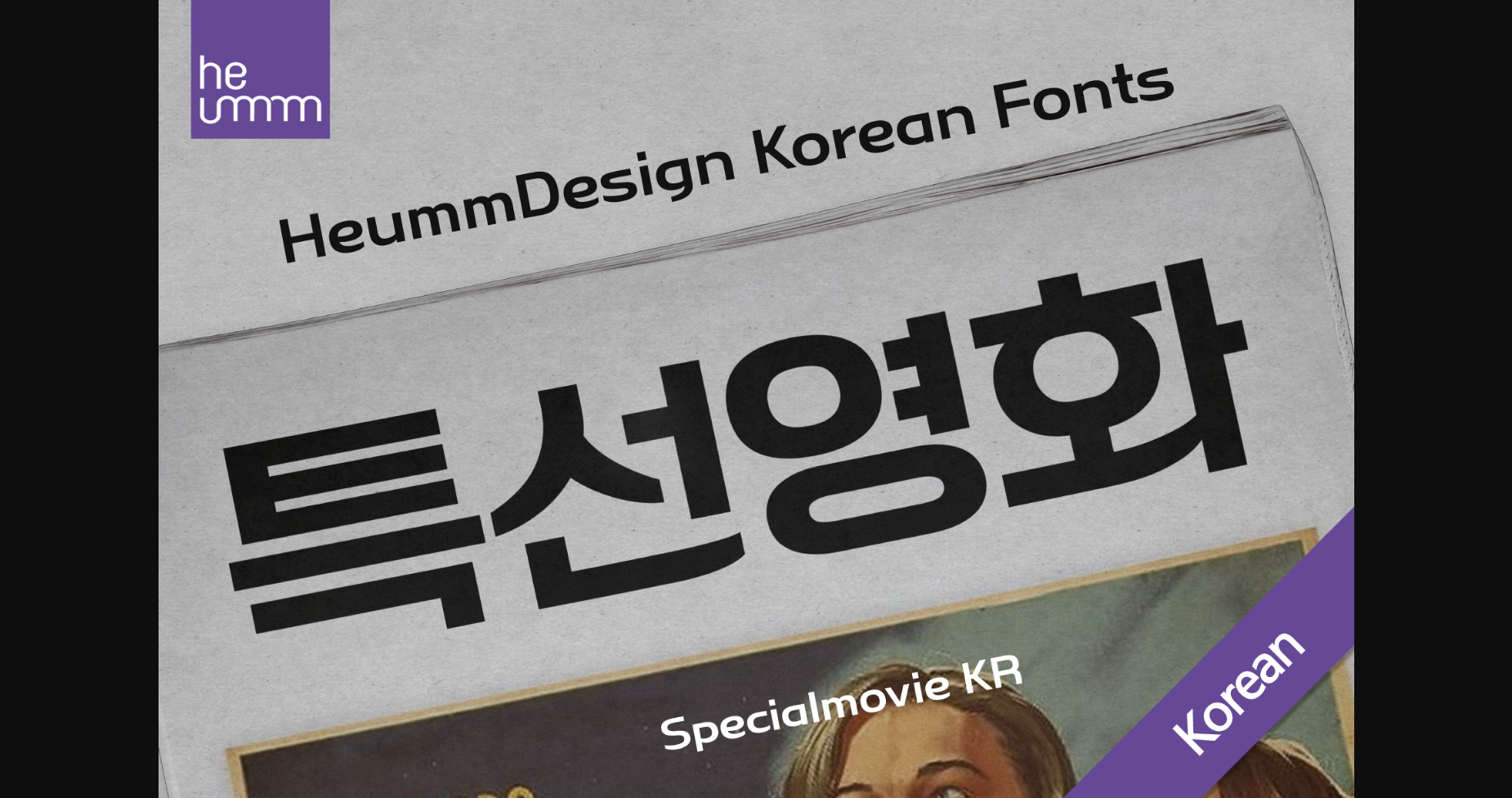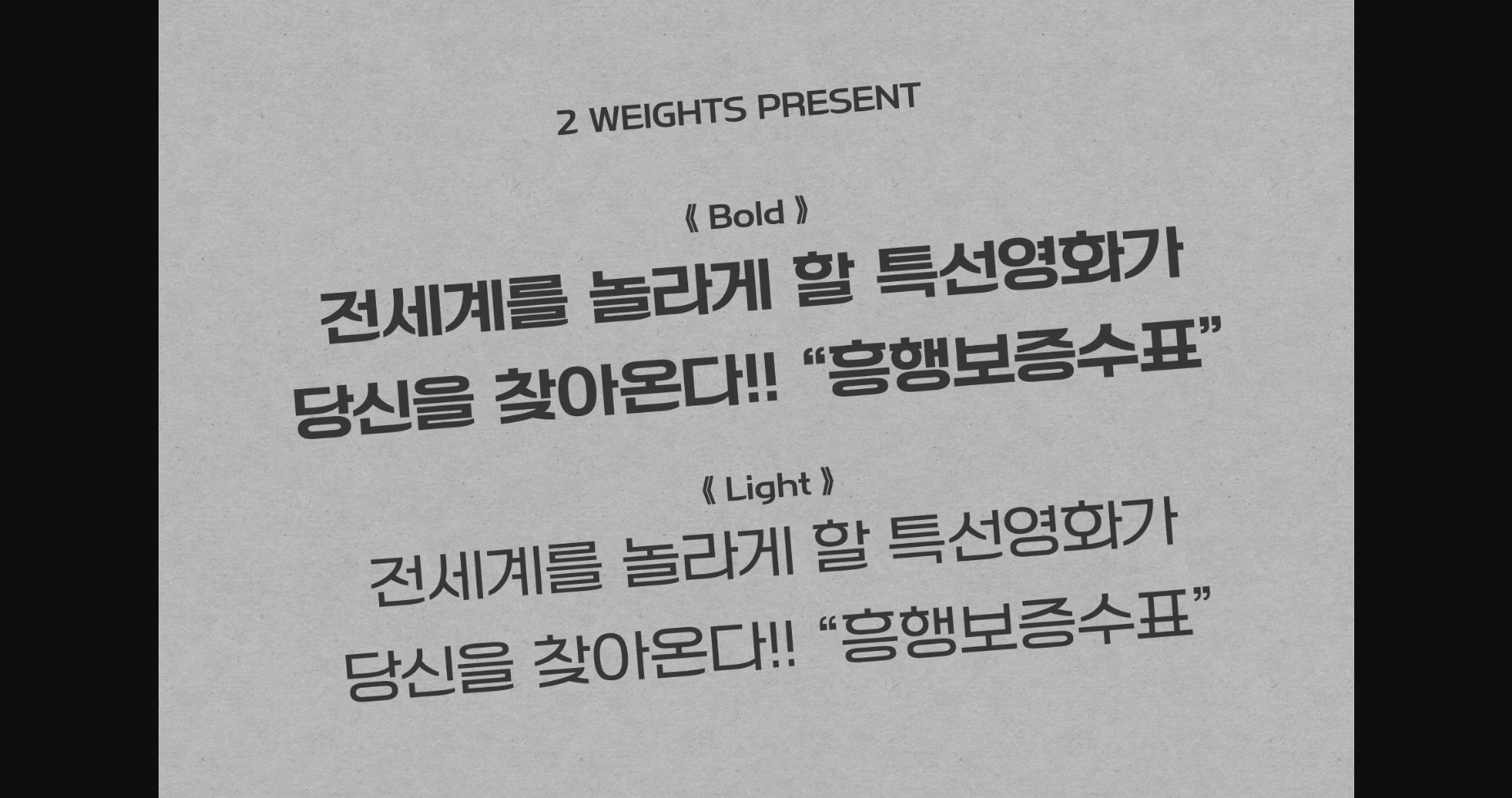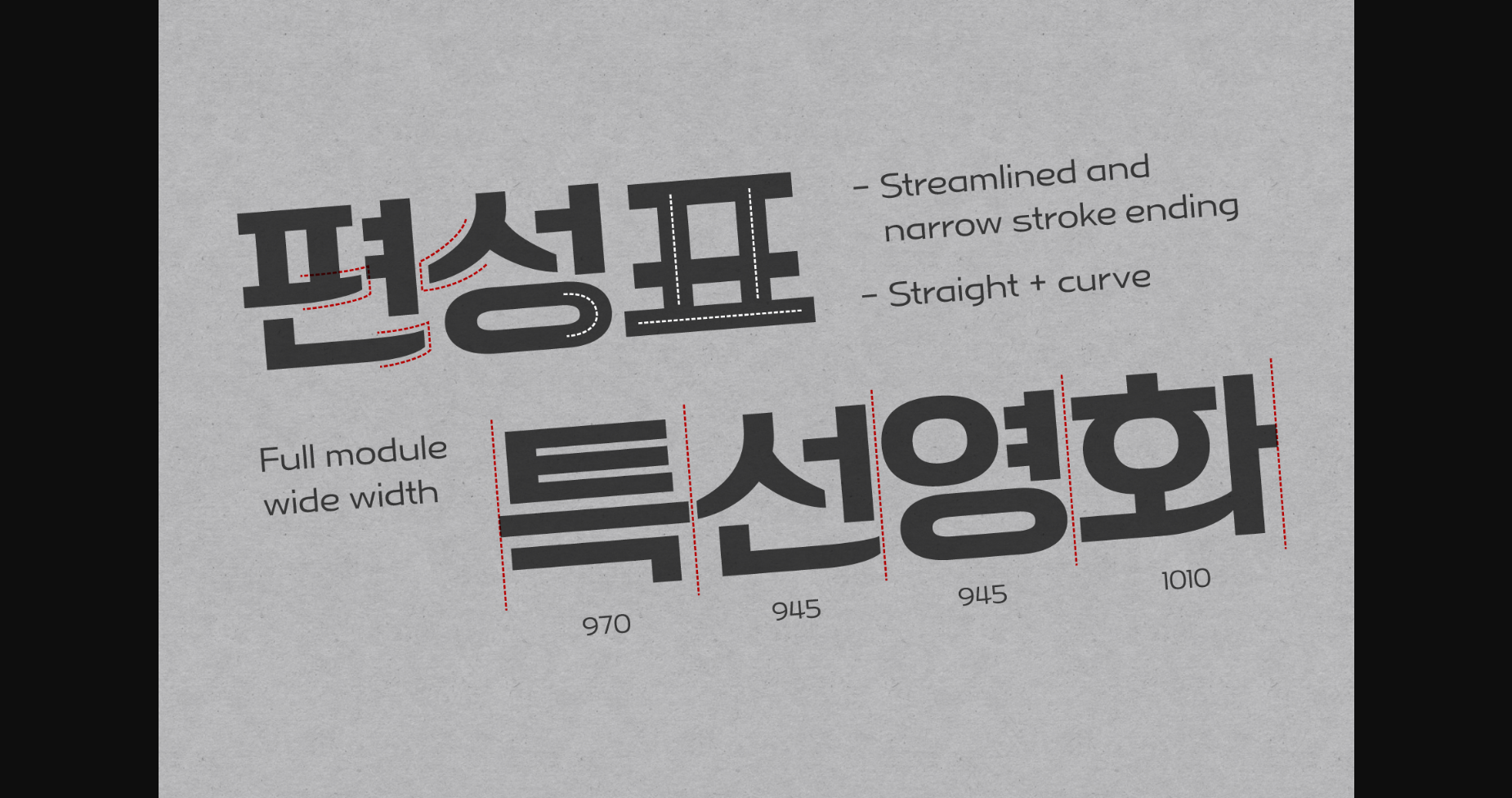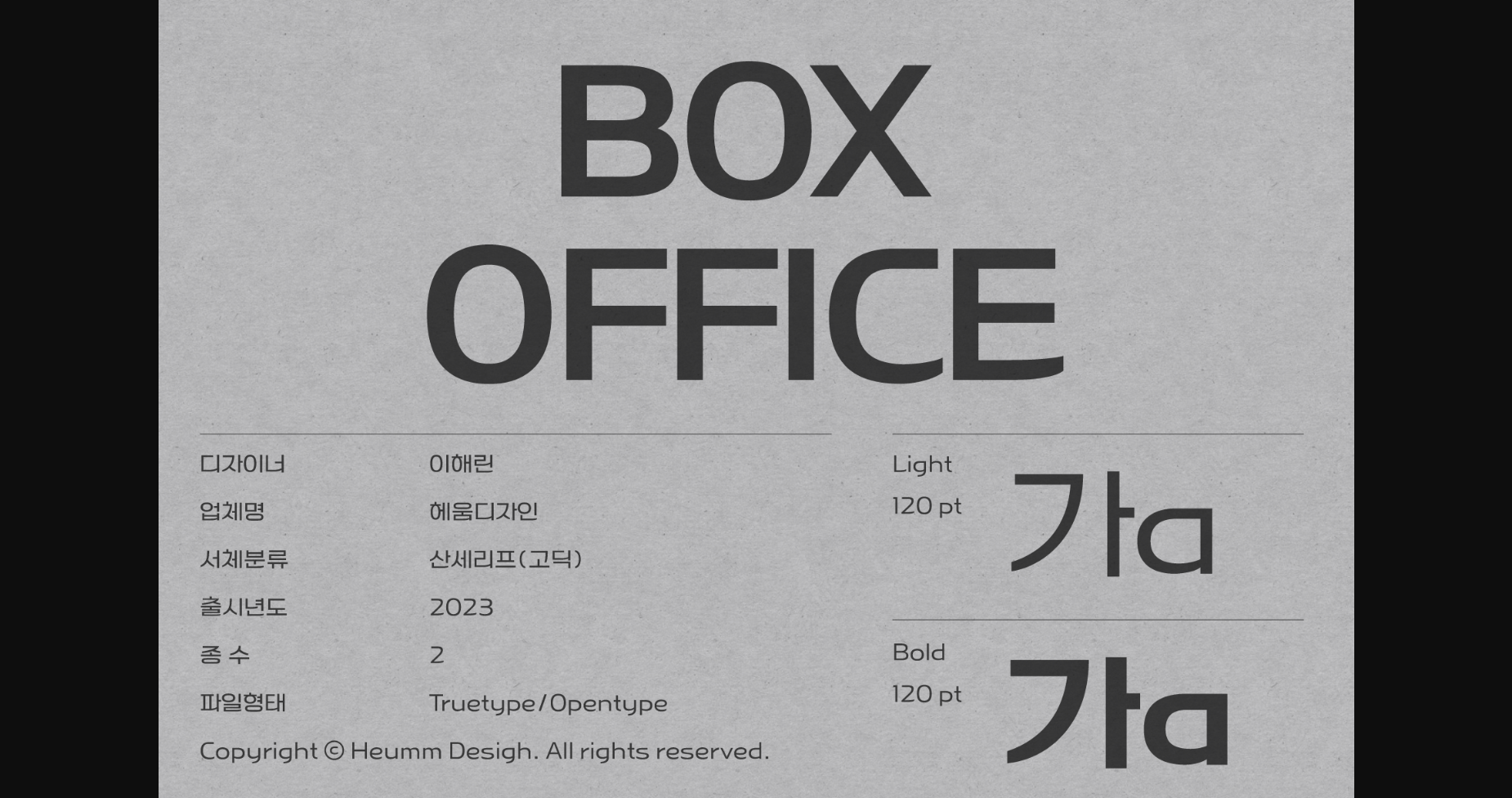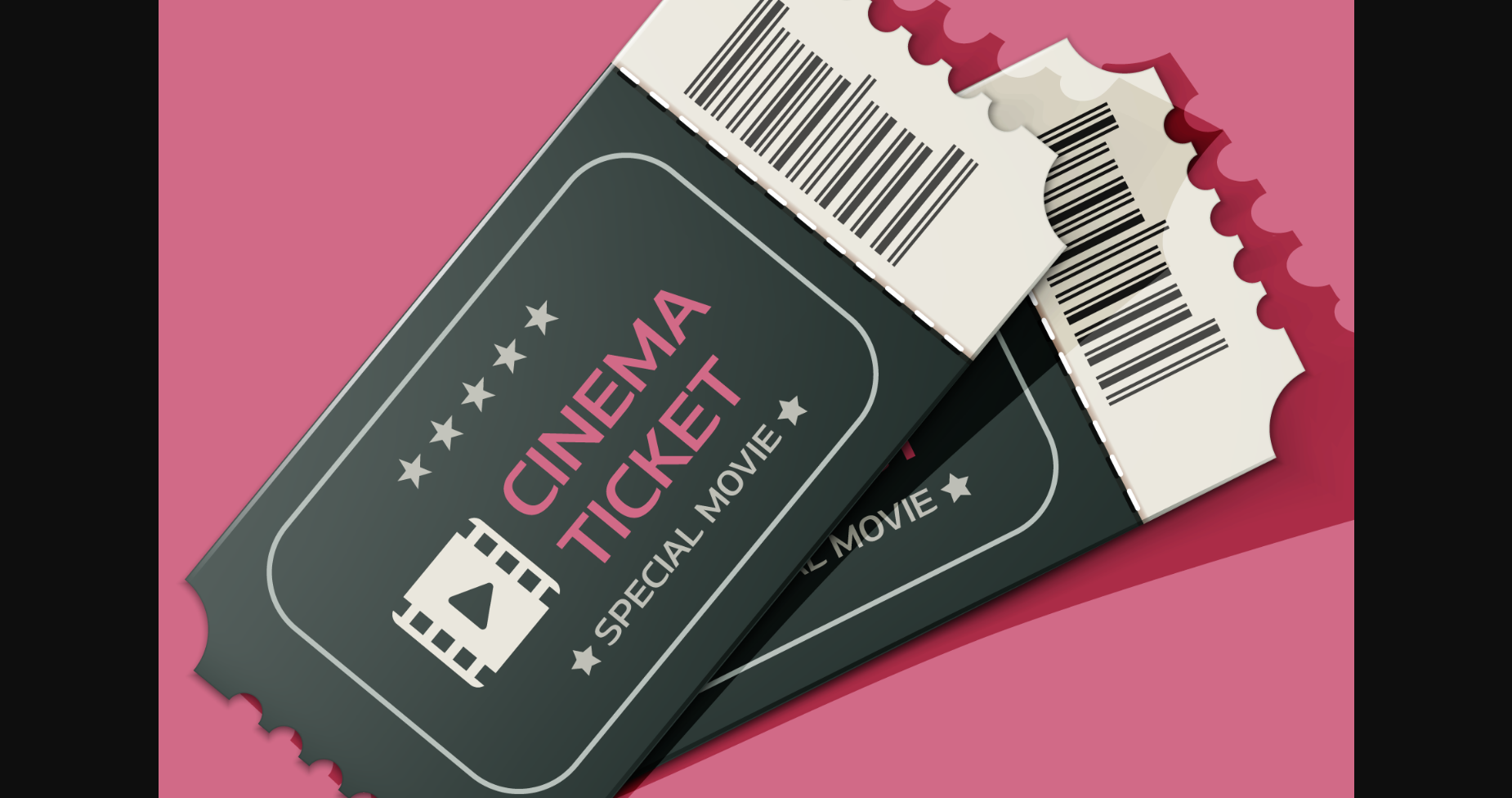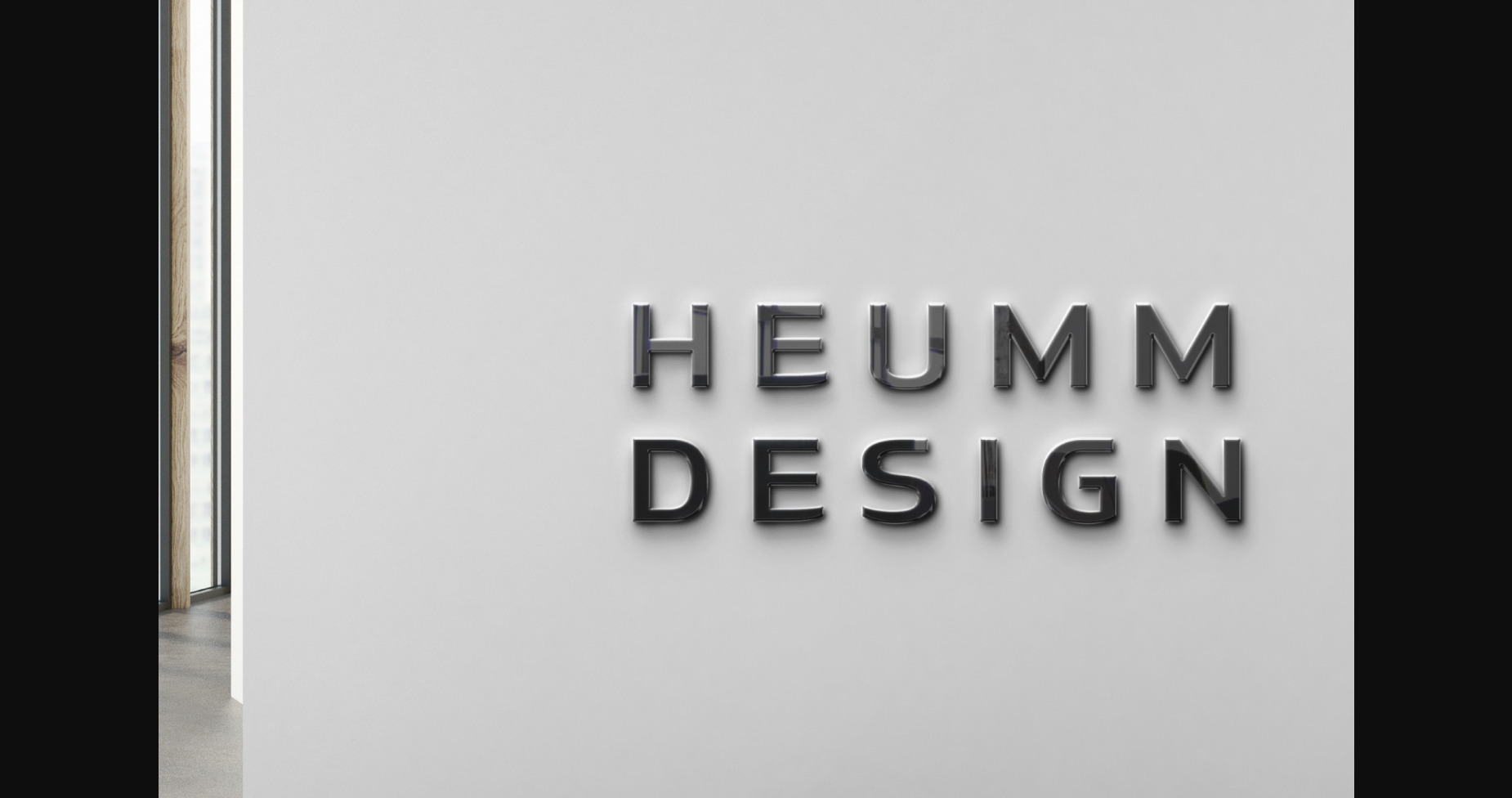
About Special Movie Kr Font
Special Movie KR is a retro, wide square typeface, characterized by streamlined, narrow stroke ends such as ‘ㄴ,ㅅ,ㅅ’. The first consonants are designed to be large with full modules to improve readability. The grapheme ‘ㅇ’, which is the face of the font, is in the form of a square in harmony with straight lines and curves, expressing a solid and simple feeling overall.